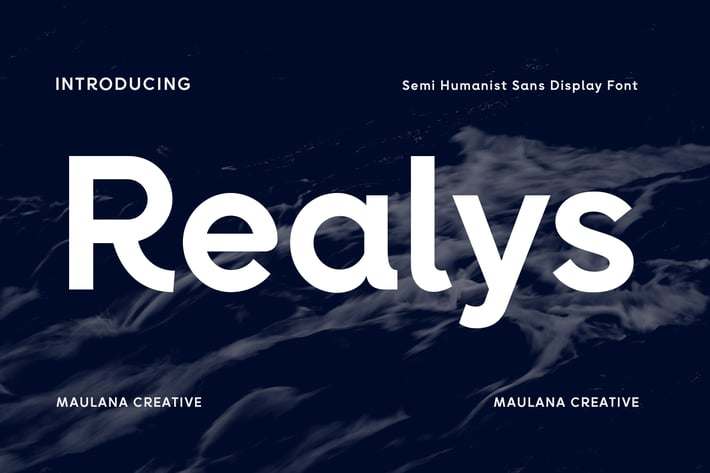
Realys Display Sans Font
Realys is a semi humanist sans Display font. Regular stroke, fun character with a bit of ligatures and alternates. To give you an extra creative work. Realys font support multilingual more than 100+ language. This font is good for logo design, Social media, Movie Titles, Books Titles, a short text even a long text letter and good for your secondary text font with script or serif. Make a stunning work with Realys font.